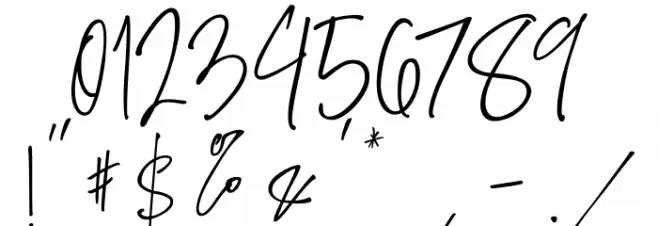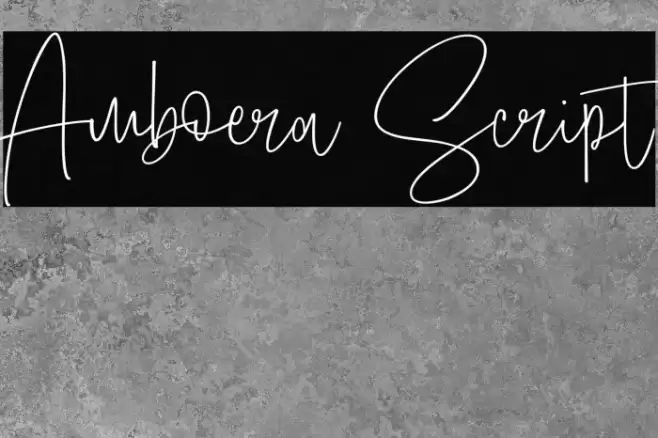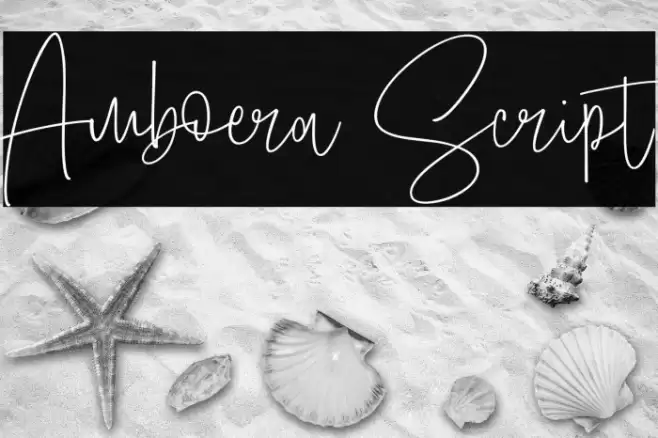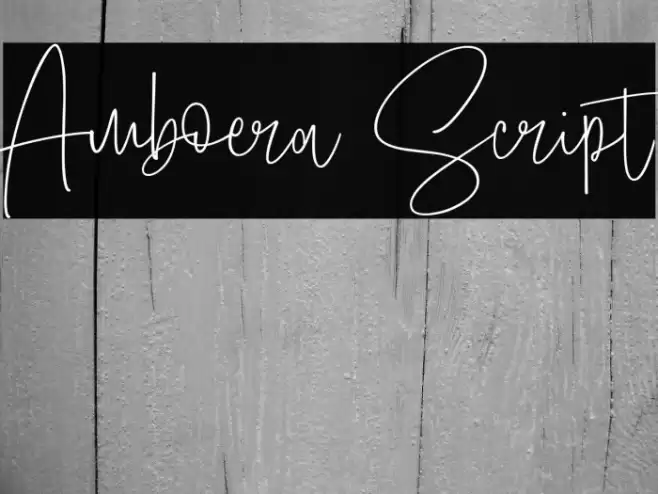
Amboera Script Font
Amboera Script Description
This script font exudes a lively and dynamic character, with its fluid and continuous strokes that mimic natural handwriting. The uppercase letters are elegantly elongated, creating a sense of movement and grace. Lowercase letters maintain a consistent flow, enhancing readability while retaining a personal touch. The numerals are distinct and clear, complementing the overall style. Special characters are thoughtfully designed to match the font's aesthetic, making it versatile for various applications. The font's playful yet sophisticated appearance makes it suitable for creative projects that require a personal and artistic flair.
| Use Case | Logos, Invitations, Social Media Graphics |
| Proposed Projects | Ideal for wedding invitations, greeting cards, branding, and social media graphics. |